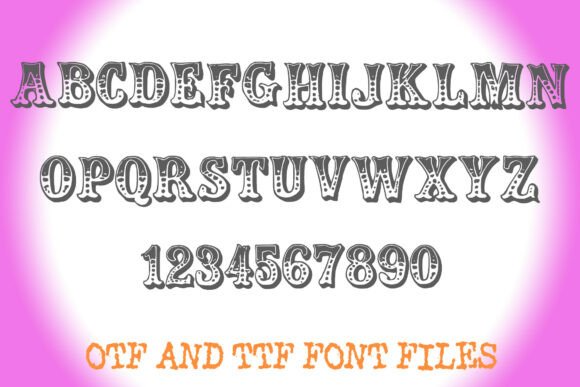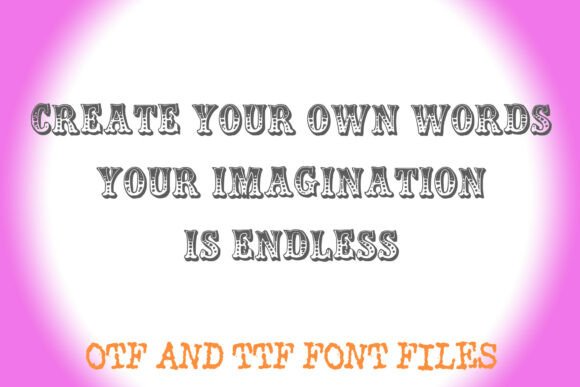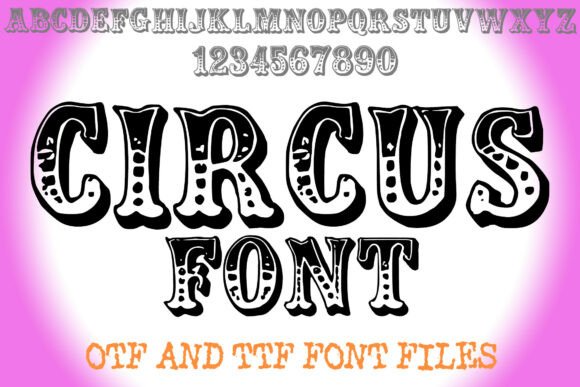
Circus Font: A Vintage-Inspired Typeface for Classic Carnival Vibes
Are you looking for a font that captures the essence of the classic circus and big top posters? Look no further than the Circus Font, a vintage-inspired decorative typeface that’s perfect for circus-themed events, signage, fun logos, and retro-style branding. With its ornate detailing, quirky proportions, and theatrical flair, this font is sure to demand attention and transport your audience to a world of wonder and excitement.
The Inspiration Behind Circus Font
The Circus Font is inspired by the classic posters and signage of the circus and carnival world. Its design is rooted in the nostalgia of a bygone era, when the big top was a symbol of entertainment and spectacle. The font’s creator aimed to capture the bold spirit of these vintage posters, with their ornate lettering, colorful graphics, and sense of excitement and drama.
Key Features of Circus Font
So, what makes the Circus Font so special? Here are some of its key features:
- Ornate detailing: The Circus Font features intricate details and flourishes that evoke the ornate lettering of vintage circus posters.
- Quirky proportions: The font’s letterforms have a playful, quirky feel that’s perfect for capturing the whimsy and humor of the circus.
- Theatrical flair: The Circus Font has a sense of drama and spectacle that’s perfect for creating eye-catching headlines and titles.
Uses for Circus Font
The Circus Font is a versatile typeface that can be used in a variety of contexts. Here are some ideas to get you started:
- Circus-themed events: Use the Circus Font to create eye-catching posters, flyers, and signage for circus-themed events, such as circus performances, festivals, and fairs.
- Signage: The font’s bold, playful style makes it perfect for creating attention-grabbing signage for businesses, such as amusement parks, carnivals, and vintage-style shops.
- Fun logos: The Circus Font is a great choice for creating fun, playful logos for businesses that want to evoke the sense of excitement and wonder of the circus.
- Retro-style branding: Use the Circus Font to create retro-style branding for businesses that want to evoke the nostalgia and charm of a bygone era.
Tips for Using Circus Font
Here are some tips for getting the most out of the Circus Font:
- Use it sparingly: The Circus Font is a bold, attention-grabbing typeface that’s best used sparingly. Use it for headlines and titles, and pair it with a simpler font for body text.
- Experiment with colors: The Circus Font looks great in bold, bright colors that evoke the excitement and spectacle of the circus. Experiment with different color combinations to find the one that works best for your project.
- Add some flair: The Circus Font has a playful, whimsical feel that’s perfect for adding some flair to your designs. Consider adding illustrations, graphics, or other design elements to really make your project pop.
The Circus Font is a unique and versatile typeface that’s perfect for designers and crafters who want to capture the essence of the classic circus and big top posters. With its ornate detailing, quirky proportions, and theatrical flair, it’s sure to add a touch of excitement and wonder to any project. Whether you’re creating posters, signage, logos, or branding, the Circus Font is a great choice for anyone who wants to evoke the nostalgia and charm of a bygone era.